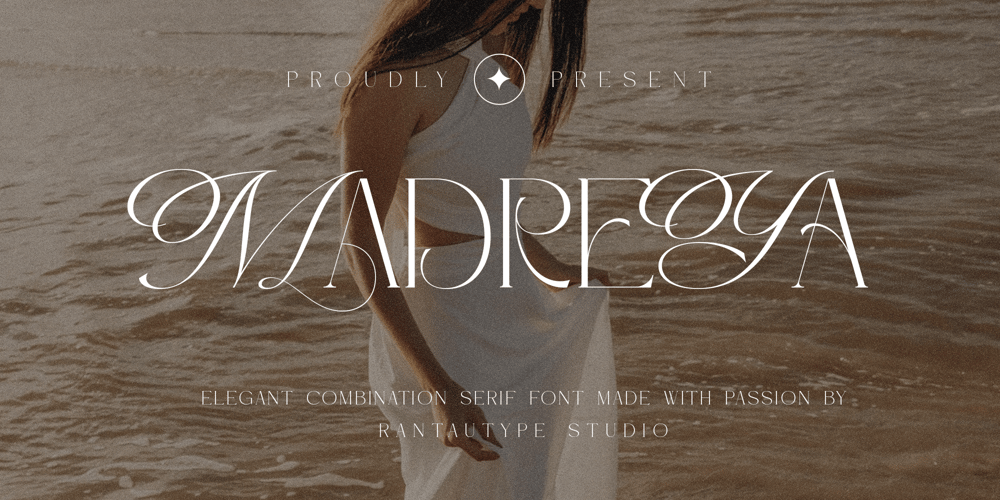
Madreya Font Family was designed by Yudi Pratama Chandra and published by RantauType. Madreya contains 1 styles and family package options. Madreya is serif combination font with blend script and serif font that embraces luxury. Madreya bring elegant touch and beautiful flowles in uppercase, you can mix and match to create beautiful brand or creative design project.Madreya is a beautiful choice for any creative endeavor, creating elegant, modern, chic, lifestyle design such as logotype, title, cover, branding, invitations, wedding designs, display and magazine, social media posts, advertisements, printed quotes, product packaging, corporate brand, product designs, labels, photography, watermarks, special events and any other project with elegant touch.What you have: Standart Glyphs Numberial and Functional Alternate and ligature Works on PC & Mac Simple installations Accessible in Adobe Illustrator, Adobe Photoshop, Adobe InDesign, even work on Microsoft Word. Fonts include Multilingual Character for: Afrikaans, Albanian, Asu, Basque, Bemba, Bena, Breton, Chiga, Cornish, Dutch, English, Estonian, Filipino, Finnish, Friulian, Galician, Gusii, Indonesian, Irish, Italian, Kabuverdianu, Kalenjin, Kinyarwanda, Luo, Luxembourgish, Luyia, Machame, North, Oromo, Portuguese, Quechua, Romansh, Rombo, Rundi, Rwa, Samburu, Sango, Sangu, Scottish, Gaelic, Sena, Shambala, Shona, Soga, Somali, Spanish, Swahili, Swedish, Swiss, German.Thank you for your purchase!Hope you enjoy with our font!